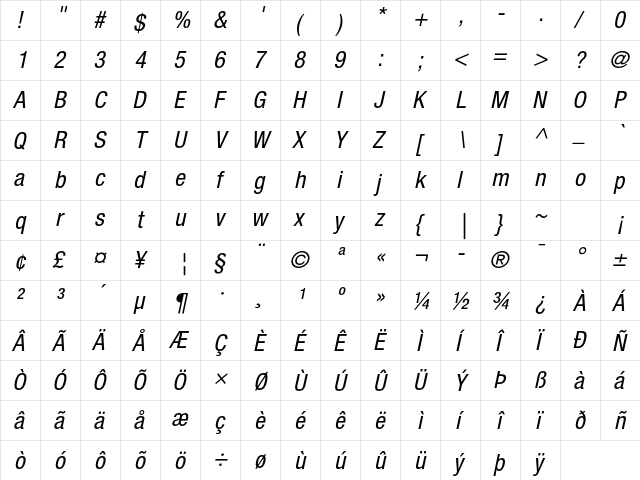
Helvetica Neue LT Std 57 Condensed Oblique Font Preview
| Style | 57 Condensed Oblique |
| Designer | Linotype Staff |
Design Context for Helvetica Neue LT Std Typeface
Helvetica Neue LT Std takes a measured approach to typography — its balanced proportions and neutral character make it a reliable workhorse for both digital and print work. Its italic angle brings a sense of urgency and motion to the letterforms. The delicate stroke weight brings airiness and refinement to layouts. Its narrow stance lets it pack a punch even in space-constrained designs.
Pro Tip: Use Helvetica Neue LT Std for emphasis, pull quotes, and subheadings where its slanted energy can add rhythm to the layout.